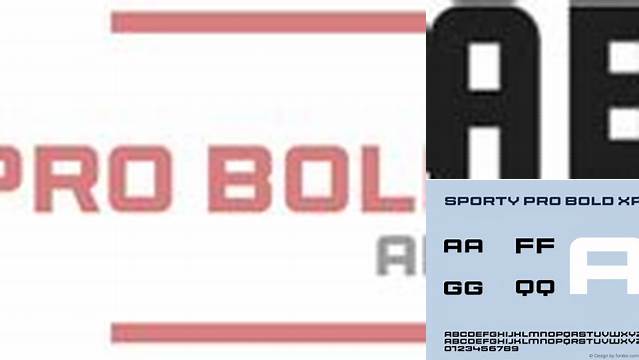
Hey guys! Are you on the hunt for a sporty pro bold font free download? You've come to the right place! This article is your ultimate guide to everything about the Sporty Pro Bold font, where to find it, how to use it, and why it's such a fantastic choice for your design projects. We'll dive deep into the font's characteristics, discuss its versatility, and provide you with the resources to download and use it effectively. Get ready to supercharge your designs with this awesome font!
What is Sporty Pro Bold Font?
Let's start with the basics. What exactly is the Sporty Pro Bold font? Well, it's a modern, bold sans-serif typeface that exudes a sense of energy, dynamism, and, well, sportiness! It's designed to grab attention and make a statement, perfect for a wide range of applications. The font's clean lines and strong presence make it ideal for headlines, titles, logos, and other design elements where you want to convey a sense of strength, speed, or action. Imagine the feeling of excitement and thrill in sports, the font brings the same energy into your design. Its thickness allows it to be easily readable even at smaller sizes, making it a versatile choice for various design needs. From posters to websites, the Sporty Pro Bold font can be used on various platforms and mediums.
It's not just about looks, though. Sporty Pro Bold is also incredibly functional. Its clear and legible design ensures that your message gets across without any confusion. This font is also a great choice for branding purposes. It helps in creating a consistent and memorable visual identity for your brand. The font can be used across different mediums to maintain consistency. This is a great way to create a memorable and consistent brand experience. The font's versatility allows it to work seamlessly in both digital and print formats. So, whether you're creating a website, designing a poster, or working on a presentation, Sporty Pro Bold has you covered.
Key Features of Sporty Pro Bold Font
Now that we know what it is, let's break down some of the key features that make the Sporty Pro Bold font so special. First and foremost, it's the boldness. This is its defining characteristic, and it’s what makes it so eye-catching. The thick strokes ensure that your text will stand out, even from a distance. This is why it's a favorite for headlines and other prominent text elements. Secondly, the font has a clean and modern design. This means it avoids unnecessary embellishments, focusing instead on simplicity and readability. The clean lines and streamlined appearance give it a contemporary feel, making it suitable for a wide range of design styles. The font also often includes various weights and styles. Although the bold version is most popular, you might find lighter or more condensed versions of Sporty Pro, which can be useful for different design purposes. Finally, the font is often designed with excellent kerning. This refers to the spacing between letters. Good kerning ensures that your text looks balanced and professional, preventing any awkward gaps or overlaps. These features make Sporty Pro Bold not just a font, but a design tool.
Let's get into the details. The bold weight is the star of the show, but the availability of other weights can give you more flexibility in your designs. You can use different weights to create hierarchy and visual interest. The clean design is perfect for a variety of applications. It allows you to avoid a cluttered look, and ensures that the message is delivered in a professional way. Many designers appreciate the versatility and visual impact the font can provide. Good kerning makes sure that the characters work together to create words, and that these words form meaningful sentences. These little details all add up to the font's overall appeal.